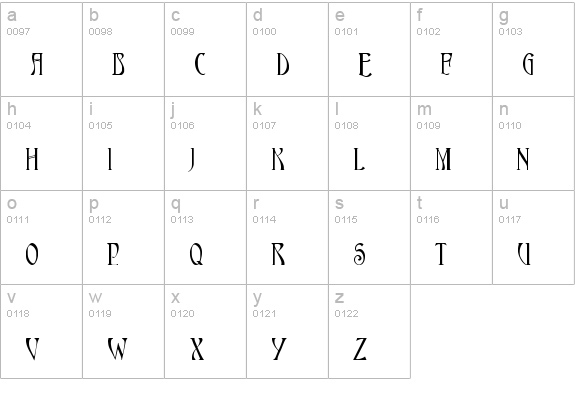
Ambrosia Font Details
Ambrosia font is a whimsical and elegant typeface that exudes grace and sophistication. With its delicate curves and flowing lines, Ambrosia brings a touch of charm to any design project. Whether used for invitations, branding, or editorial layouts, this font adds a touch of magic to your work. The best part about Ambrosia font is that it is completely free to download at FontsMarket.com. This means you can easily access this beautiful typeface and incorporate it into your creative endeavors without any cost. Don't miss out on the opportunity to enhance your projects with the enchanting Ambrosia font - download it for free today!